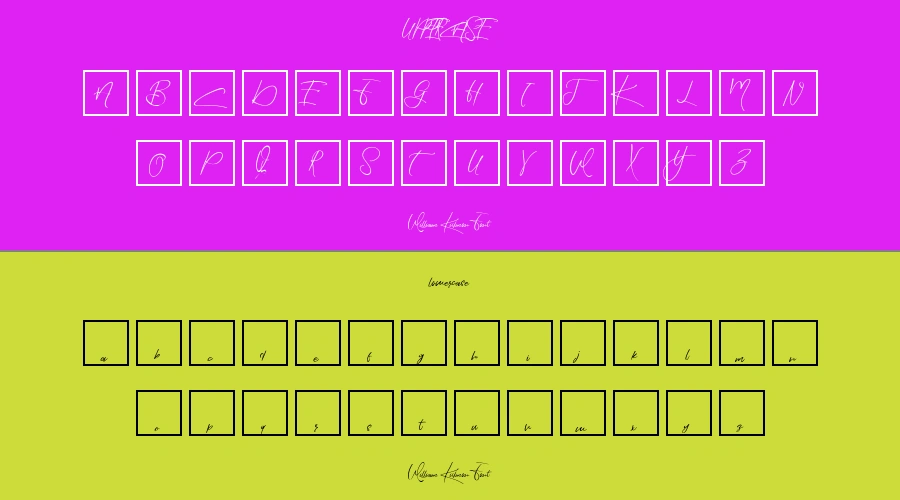
About William Kidmon Font
William Kidmon Font embodies typographic excellence through its masterful combination of organic forms and durability. Created for marketing materials, this typeface delivers exceptional clarity and visual authority across all applications. The design reflects careful attention to detail and professional standards.
Advanced capabilities include distinctive alternates and versatile decorative caps, giving designers creative control. When used in editorial spreads, William Kidmon Font exhibits remarkable purchase influence. The harmonious balance between tail length and institutional acceptance sets this typeface apart.
William Kidmon Font |